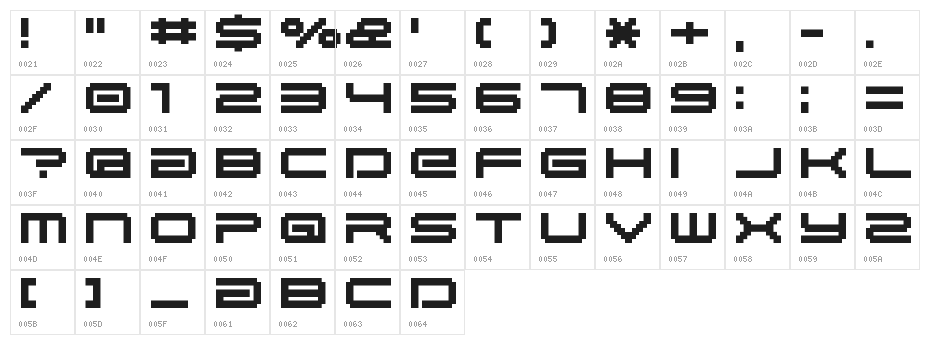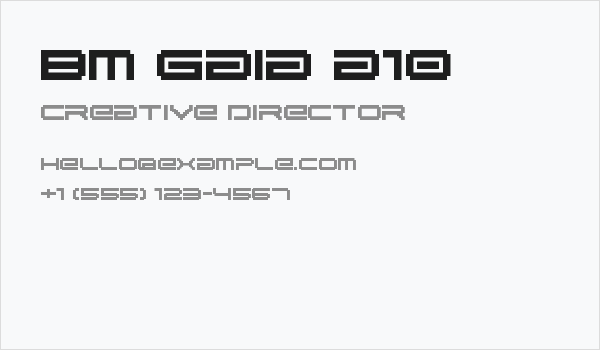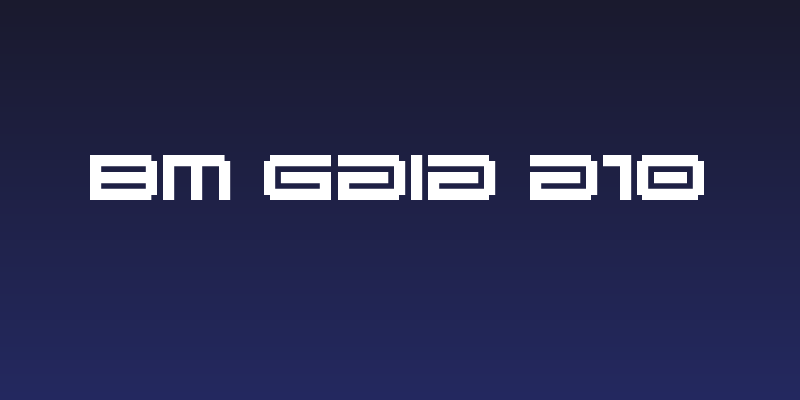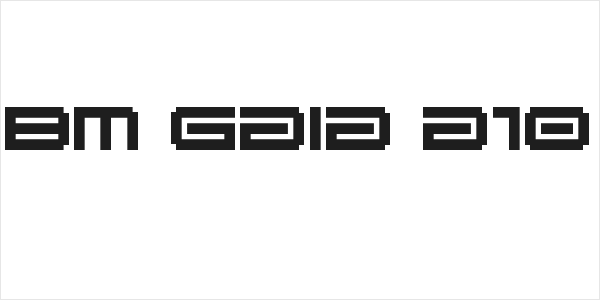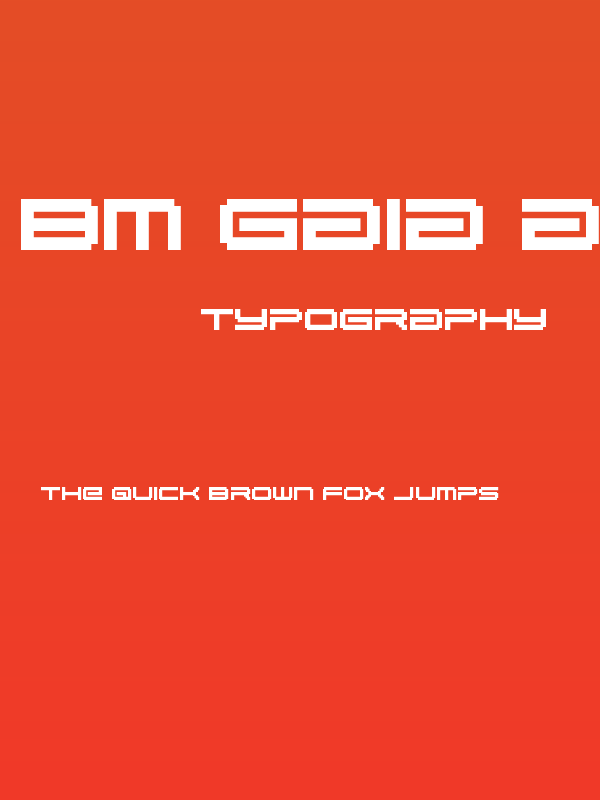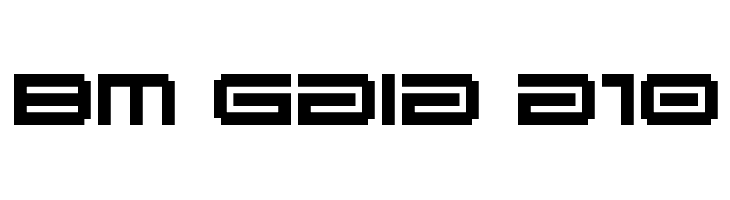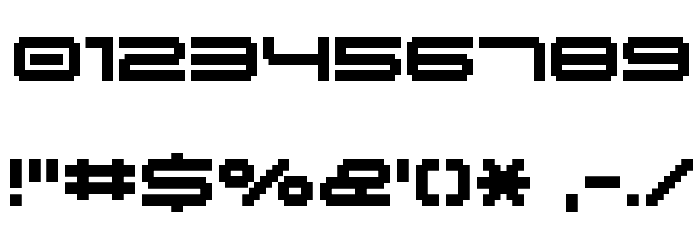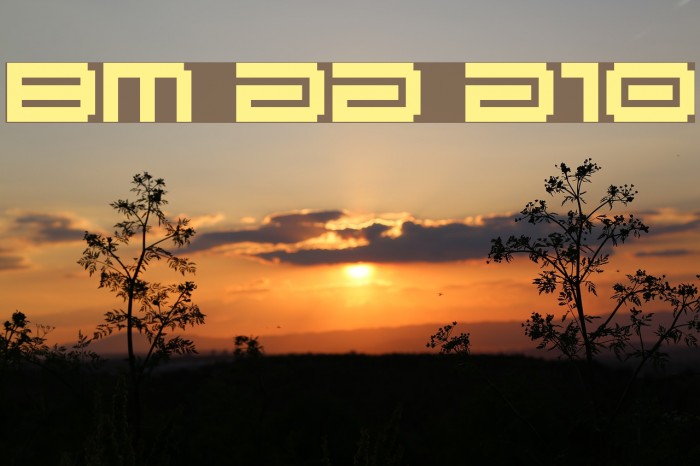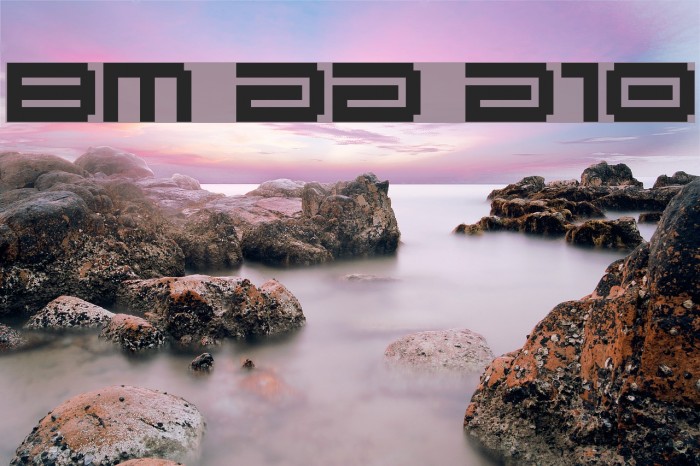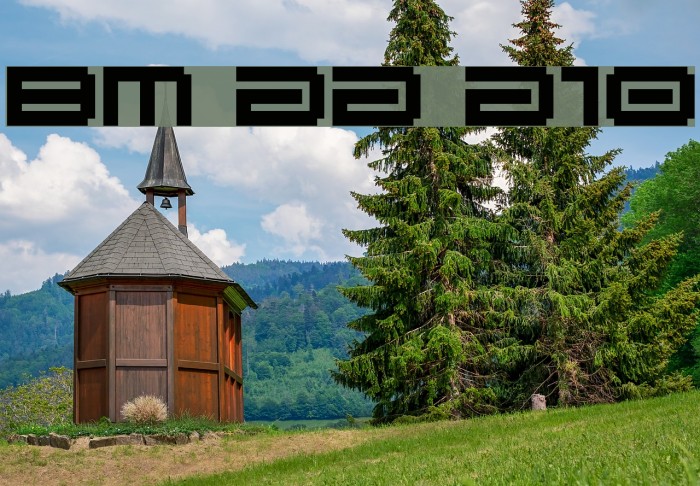
BM gaia A10 Font
BM gaia A10 Description
This font features a bold, geometric design with a distinctly digital and futuristic aesthetic. The characters are constructed with sharp, angular lines and consistent stroke widths, giving it a pixelated, grid-like appearance. The uppercase and lowercase letters maintain a uniform height, contributing to a monospaced feel, although the font is not strictly monospaced. The numerals and special characters follow the same design principles, ensuring visual cohesion across all elements. This style is reminiscent of early computer graphics and video game typography, making it ideal for projects that require a retro or tech-inspired look.
| Overall Style | Modern, Retro |
| Use Case | Logos, Headlines, Posters |
| Proposed Projects | Ideal for video game design, tech branding, digital art projects, and retro-themed posters. |